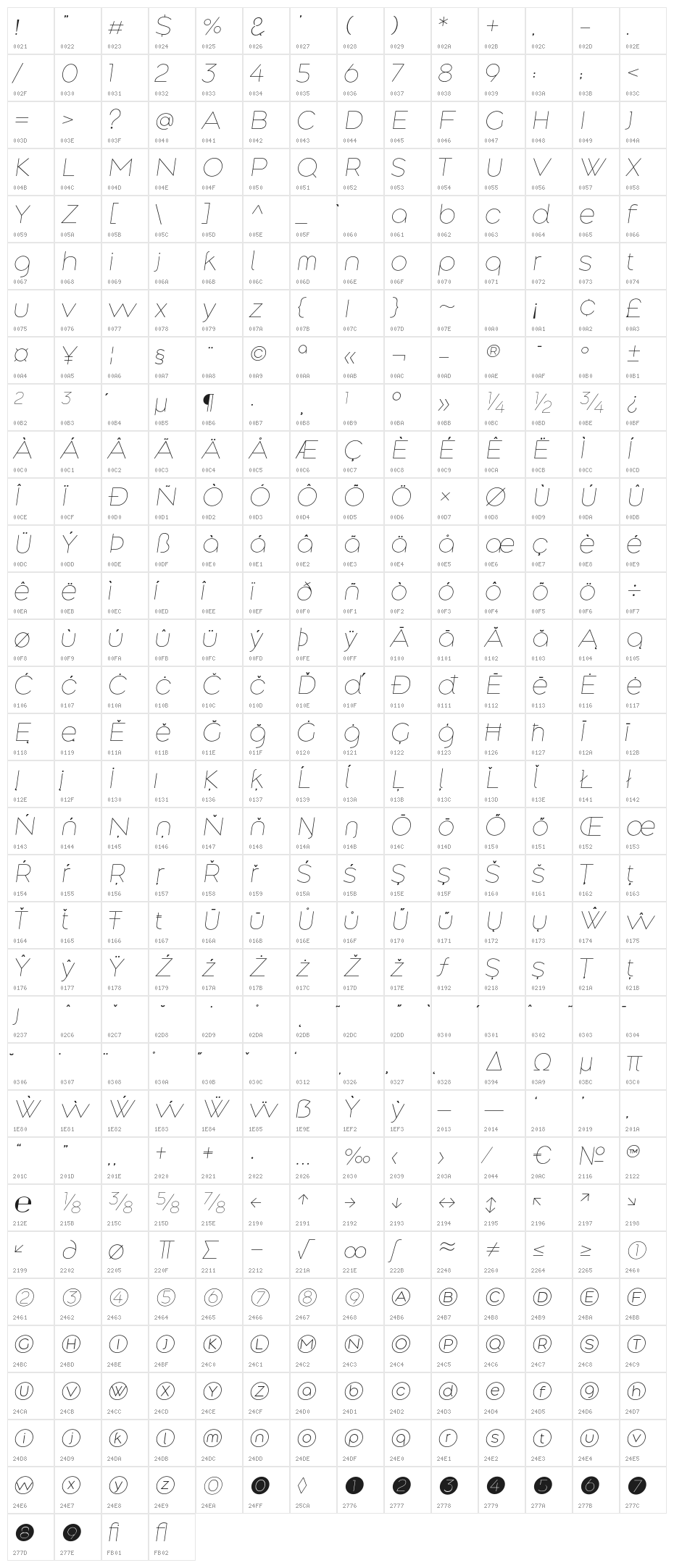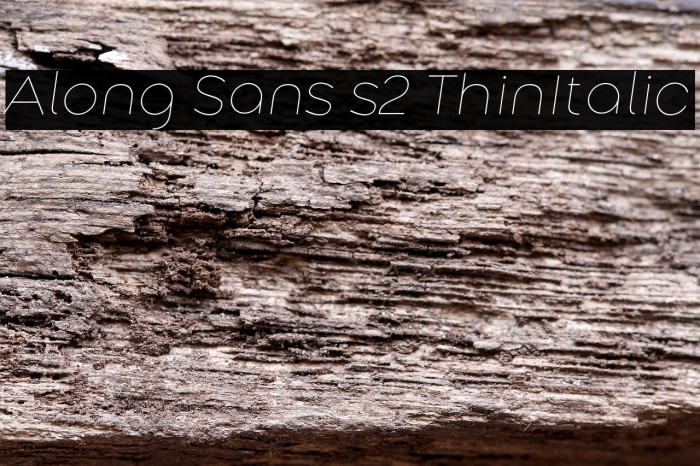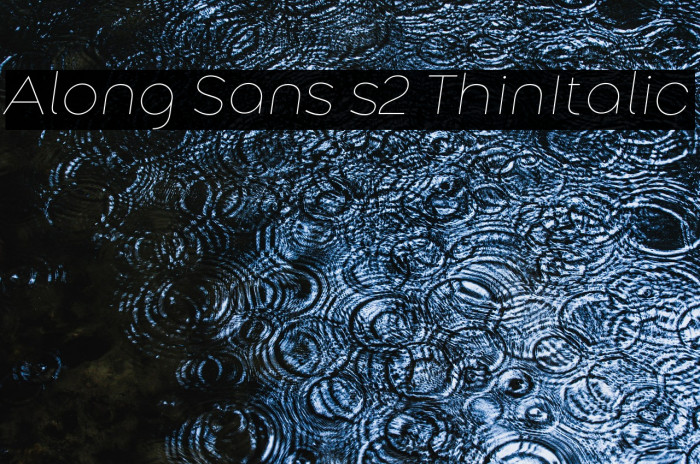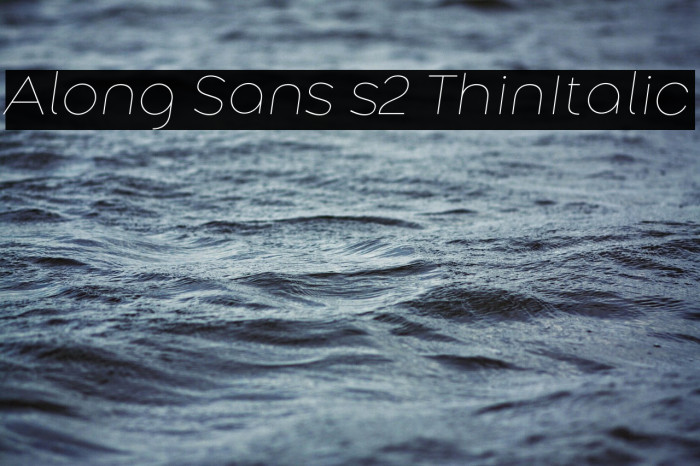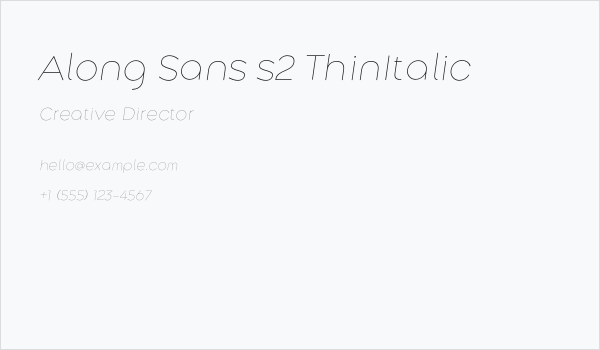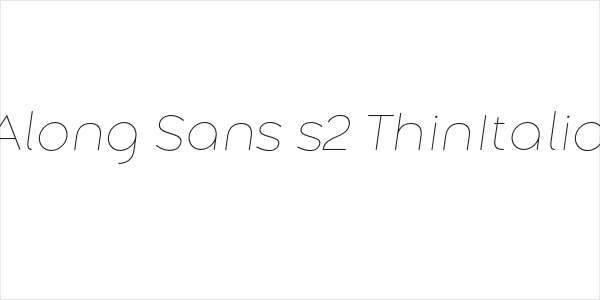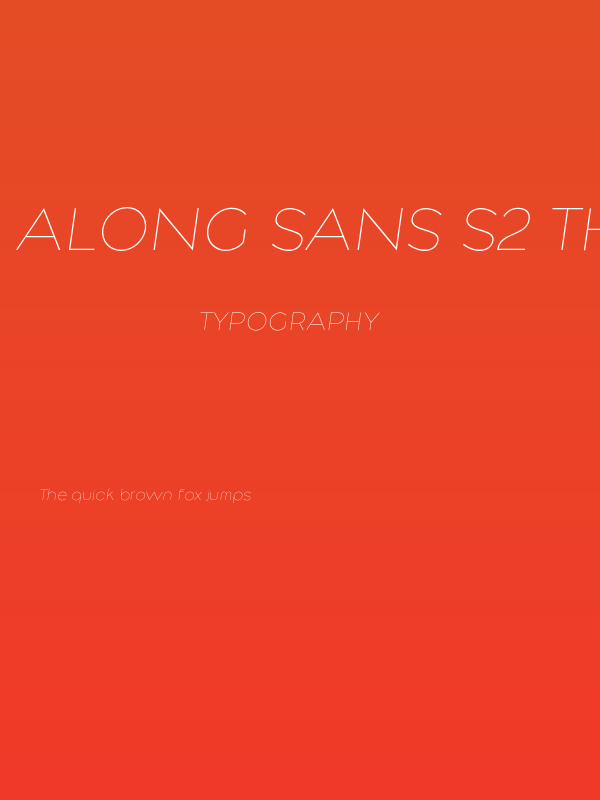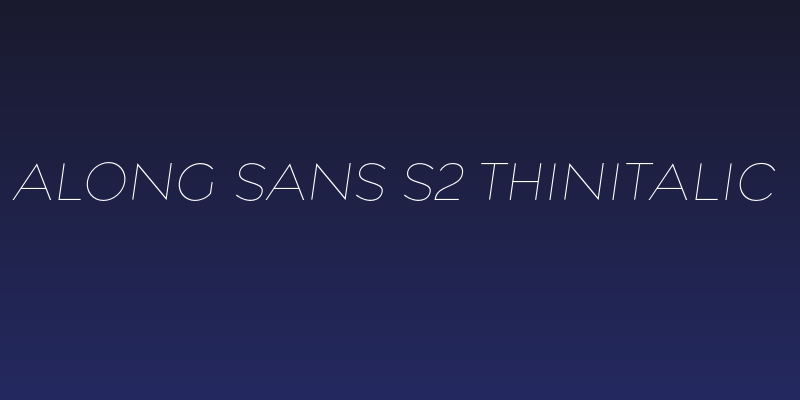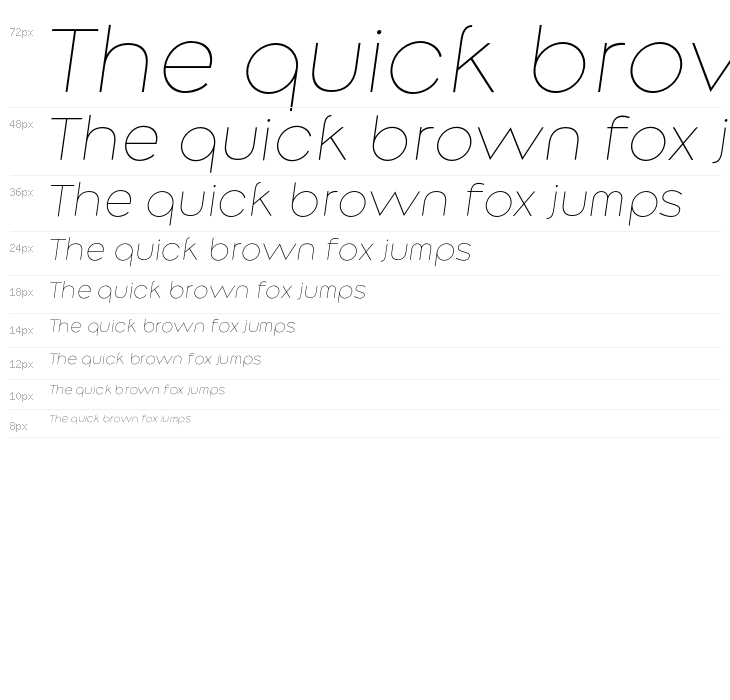
Along Sans s2 ThinItalic Font
Along Sans s2 ThinItalic Description
This font features a sleek, modern design with a thin, elegant stroke that gives it a sophisticated and contemporary appearance. The characters are slightly italicized, adding a dynamic and fluid feel to the text. The sans-serif style ensures clean lines and a minimalist aesthetic, making it highly versatile for various design applications. The uppercase and lowercase letters maintain a consistent style, with a uniform height and width that enhances readability. The numerals and special characters are designed to match the overall aesthetic, providing a cohesive look across all text elements.
| Use Case | Headlines, Branding, Invitations |
| Proposed Projects | Ideal for modern branding, minimalist design projects, elegant invitations, and sleek website headers. |